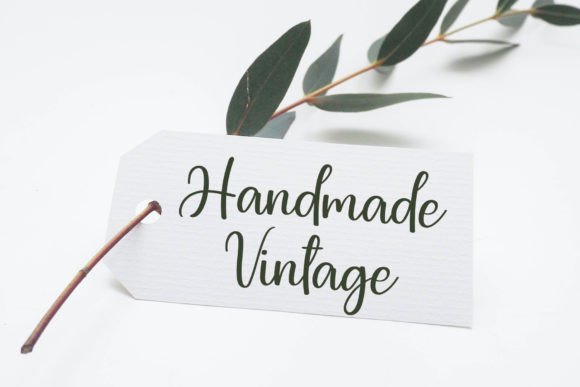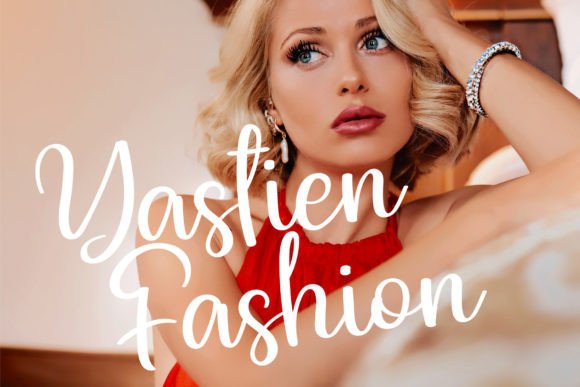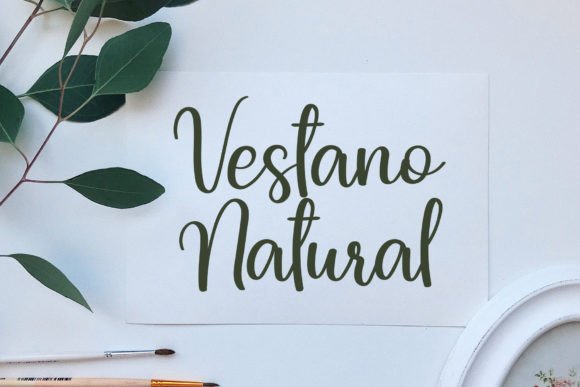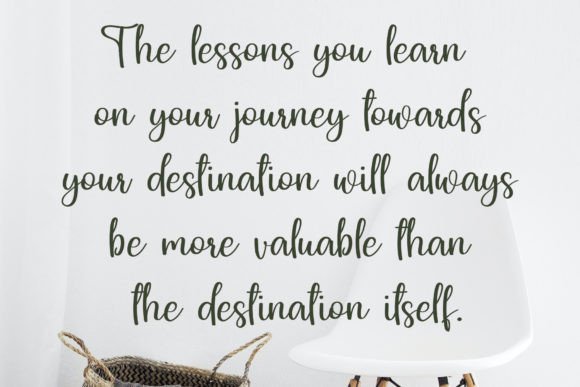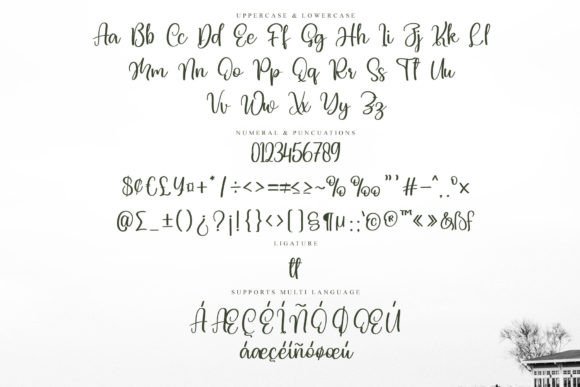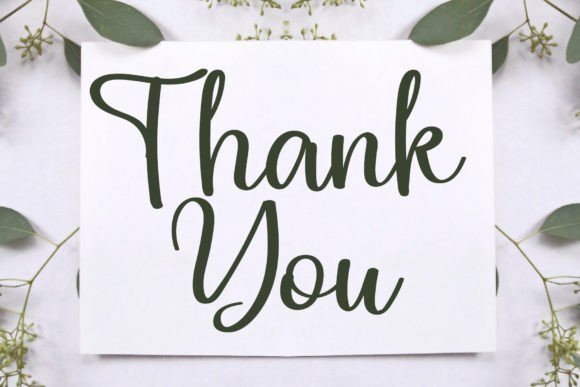
Glorify Font: Elevate Your Designs with a Playful and Stylish Script Font
Are you looking for a font that can add a touch of playfulness and sophistication to your designs? Look no further than the Glorify Font. This stylish script font is perfect for designers and crafters who want to create visually appealing projects that exude a youthful spirit. In this article, we’ll explore the features and benefits of the Glorify Font, and how it can be used to elevate your designs.
What is Glorify Font?
Glorify Font is a modern script font that is designed to be both playful and stylish. Its unique and elegant letterforms make it perfect for a wide range of design projects, from professional-looking branding designs and business cards to casual designs like packaging, posters, and social media posts.
Key Features of Glorify Font
- Playful and Youthful Spirit: Glorify Font has a fun and energetic vibe that makes it perfect for designs that require a playful touch.
- Stylish and Elegant: The font’s elegant letterforms and smooth lines make it suitable for professional-looking designs that require a touch of sophistication.
- Versatile: Glorify Font can be used for a wide range of design projects, from branding designs and business cards to packaging, posters, and social media posts.
- Easy to Read: The font is designed to be easy to read, making it perfect for body text and headings.
Benefits of Using Glorify Font
Using Glorify Font in your designs can have numerous benefits. Here are a few:
- Adds a Touch of Personality: Glorify Font can add a touch of personality to your designs, making them stand out from the crowd.
- Enhances Brand Identity: The font’s unique and stylish letterforms can help enhance your brand’s identity and make it more memorable.
- Increases Engagement: The playful and youthful spirit of Glorify Font can help increase engagement and make your designs more appealing to your target audience.
- Saves Time: With Glorify Font, you can create professional-looking designs quickly and easily, saving you time and effort.
Use Cases for Glorify Font
Glorify Font is suitable for a wide range of design projects, including:
- Branding Designs: Use Glorify Font to create stylish and professional-looking branding designs that reflect your brand’s personality.
- Labels and Packaging: The font is perfect for creating labels and packaging that require a touch of playfulness and sophistication.
- Websites and Business Cards: Use Glorify Font to create professional-looking websites and business cards that make a lasting impression.
- Social Media Posts: The font’s playful and youthful spirit makes it perfect for social media posts that require a touch of personality.
- Invitations and Posters: Glorify Font is also suitable for creating invitations, posters, and flyers that require a touch of elegance and sophistication.
Tips for Using Glorify Font
Here are a few tips for using Glorify Font in your designs:
- Use it Sparingly: Use Glorify Font sparingly to avoid overwhelming your design. Use it for headings and titles, and a simpler font for body text.
- Experiment with Colors: Experiment with different colors to find the perfect combination that matches your brand’s identity.
- Pair it with Other Fonts: Pair Glorify Font with other fonts to create a unique and stylish typography.
In conclusion, Glorify Font is a stylish and playful script font that can add a touch of personality and sophistication to your designs. Its versatility, elegance, and playfulness make it perfect for a wide range of design projects, from professional-looking branding designs to casual designs like packaging and social media posts. With Glorify Font, you can create visually appealing designs that engage and inspire your target audience.